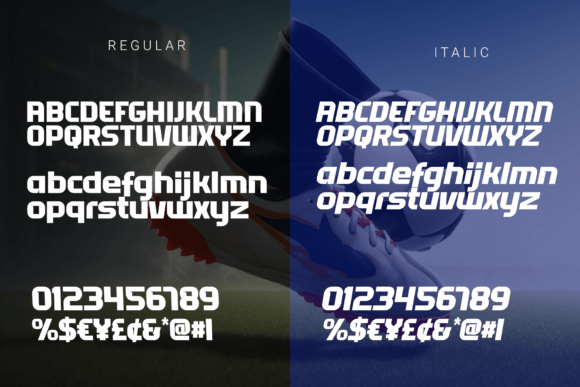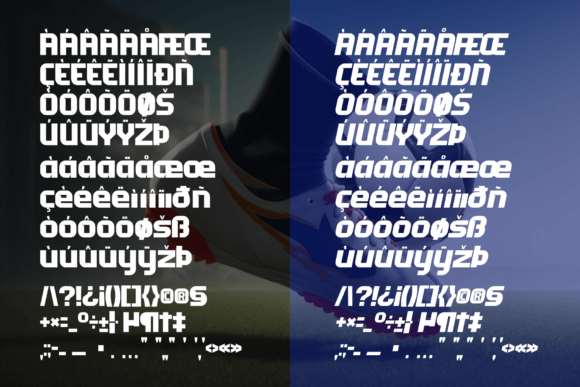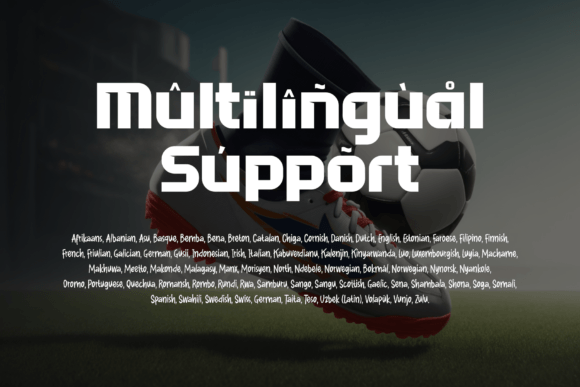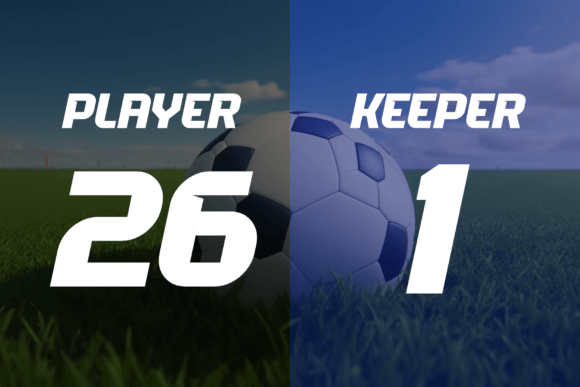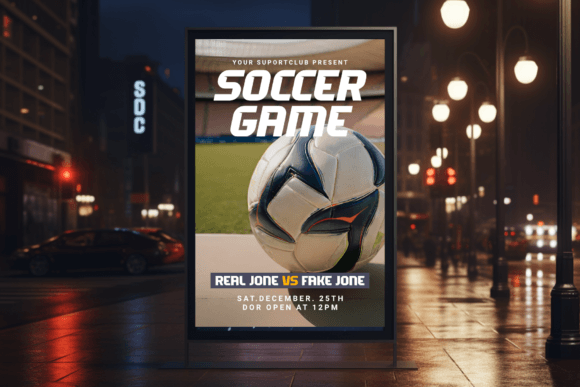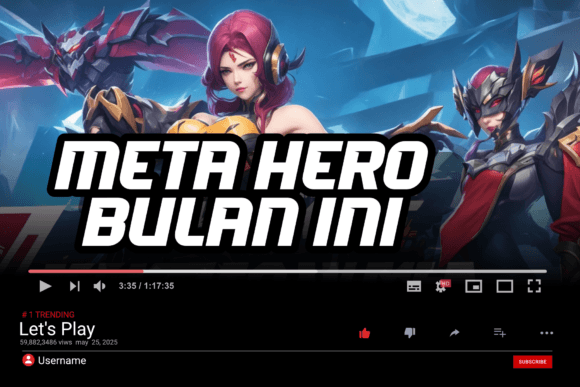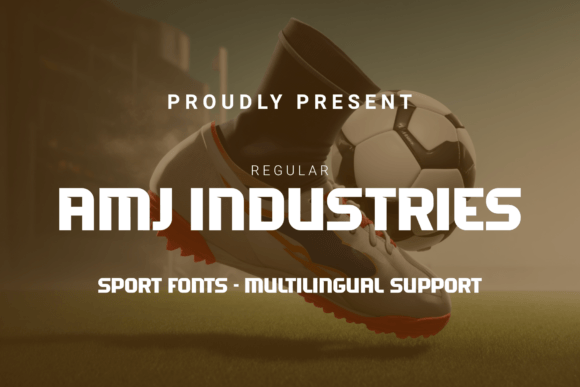
The Winning Touch: Unlocking the Power of Amj Industries Font
Imagine you’re on the cusp of designing a logo for your favorite sports team, and you need a font that screams energy and dynamism. You’re browsing through a library of fonts, and suddenly, you stumble upon Amj Industries Font. Its strong, modern design and bold lines instantly capture your attention, and you know you’ve found the perfect match.
Amj Industries Font is specifically designed to create a powerful and captivating impression, making it an ideal choice for sports-related designs. With its aggressive and masculine typographic style, this font is perfect for sports teams, sports equipment brands, and major sports events. As a designer, you’ll appreciate the flexibility and creativity that Amj Industries Font offers, allowing you to bring a unique and distinctive touch to every sports design project.
Whether you’re working on a logo, poster, jersey, or promotional material, Amj Industries Font is sure to deliver the winning touch you need to make your design stand out.
Key Features of Amj Industries Font
- Unique Characteristics: Features a distinctive, modern sans-serif design with clean lines and geometric shapes, making it ideal for corporate branding and digital applications.
Amj Industries Font Review
Overall, I found the Amj Industries Font to be an interesting and unique choice for typography. ✨ Here are a few things that work well:
- Distinctive aesthetic: The font’s industrial, vintage feel is perfect for projects that require a retro vibe.
- Good legibility: While it’s not a clean and simple font, Amj Industries is still easy to read, especially at larger font sizes.
- Customizability: The font comes in a range of weights and styles, making it easy to find the right fit for your project.
However, there are a few limitations that I want to highlight:
- Not ideal for body text: Due to its unique character set, Amj Industries can be overwhelming when used for large blocks of text.
- Limited language support: The font doesn’t include a full character set for many languages, which may be a problem for projects that require multilingual support.
- Not suitable for digital screens: The font’s design, while great for print, can be difficult to read on digital screens.
Overall, I think the Amj Industries Font is a great choice for specific projects, but it’s not a one-size-fits-all solution. It’s perfect for projects that require a unique, industrial aesthetic, but may not be the best choice for general body text or digital applications.
The Amj Industries Font is suitable for a variety of applications, including:
- Business presentations and reports
- Editorial content and articles